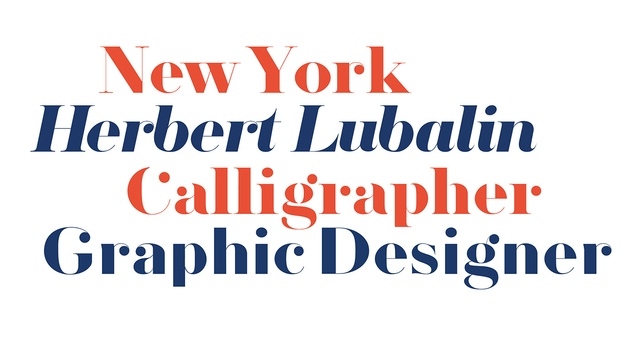
Herbert Font
This font is ideal for headlines, logos, branding, posters, social media graphics, and packaging design. Its strong, contemporary style ensures your text stands out with confidence and flair.
What makes Herbert Font Free Download exciting is its unique combination of modern geometry and classic elegance. It adds a sense of sophistication while remaining highly readable, making your designs both striking and functional.
The font family of Herbert includes multiple weights such as Light, Regular, Bold, and Italic, allowing designers to create contrast and hierarchy effortlessly.
Overall, Herbert Font Free Download is perfect for designers looking to make a strong visual statement. From professional branding to attention-grabbing posters, this font adds style, versatility, and impact to any project.